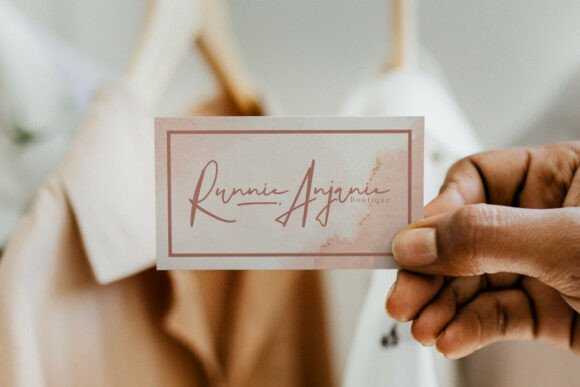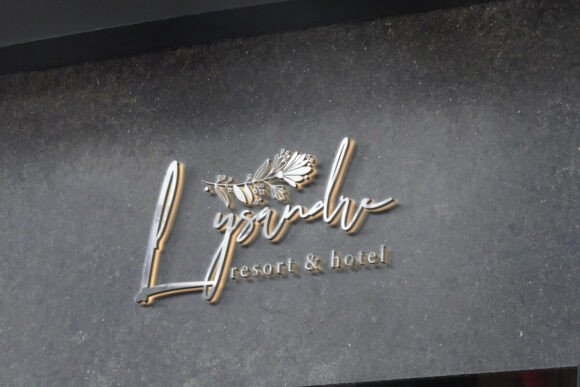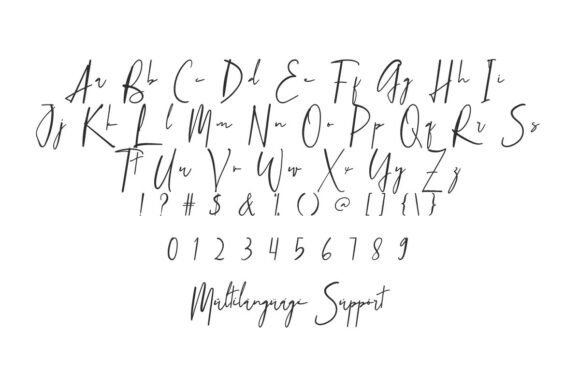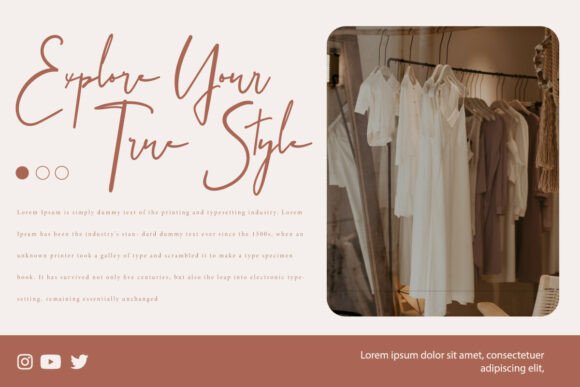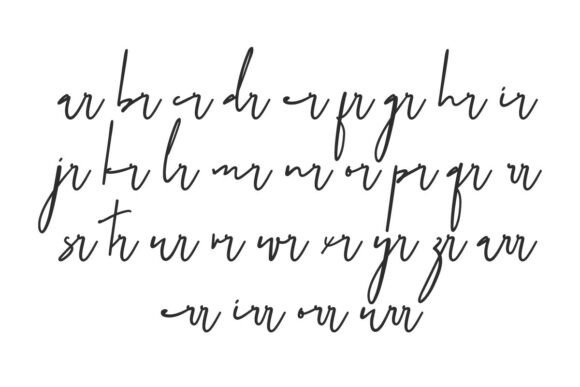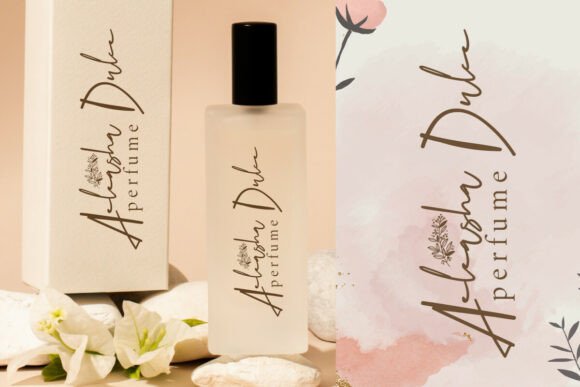
Introduction to Runnie Anjanie Font Font
Fonts play a crucial role in design, and the Runnie Anjanie Font font is a typeface that brings both character and versatility to any project. Whether you’re working on a branding project, a website, or a print design, the Runnie Anjanie Font font offers a unique style that can elevate your work.
Runnie Anjanie Font is a charming signature font equipped with many ligatures of combined letters that add beauty to this font.
It is like most peopleβs handwriting, which is simple and beautiful but does not reduce the aesthetic value of the handwriting This font is suitable for card designs, headers, labels, logos, mockups, signs, stationery, templates, titles, watermarks, etc.
Key Features of Runnie Anjanie Font Font
Why Choose Runnie Anjanie Font Font?
The Runnie Anjanie Font font is more than just a typeface β it’s a design tool that helps you communicate your message with style and clarity. Its unique character set and versatile design make it suitable for a wide range of applications, from elegant invitations to bold headlines.
With its carefully crafted letterforms and balanced proportions, the Runnie Anjanie Font font ensures readability and visual appeal across all mediums.
What makes Runnie Anjanie Font font special?
The Runnie Anjanie Font font stands out with its unique design, exceptional readability, and versatility across various design applications.